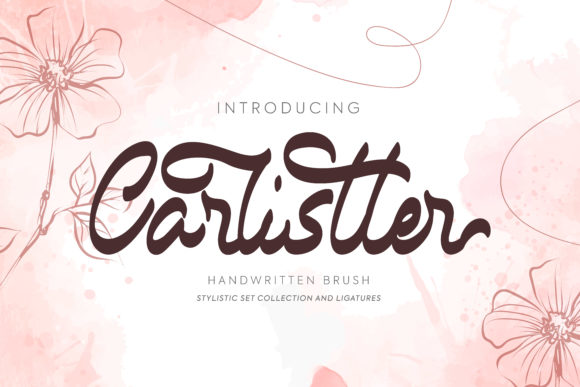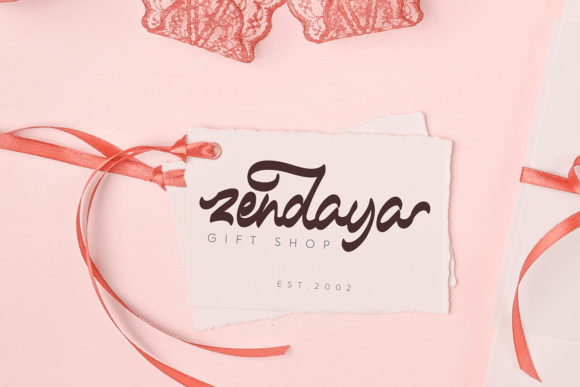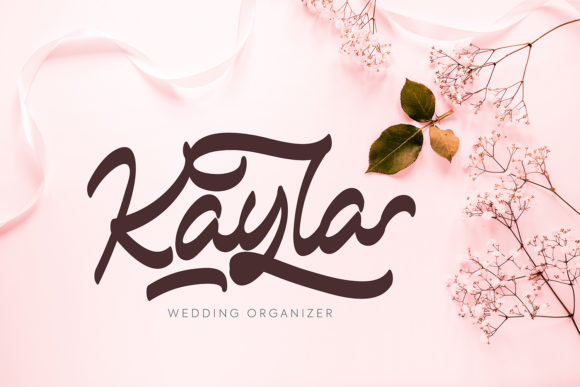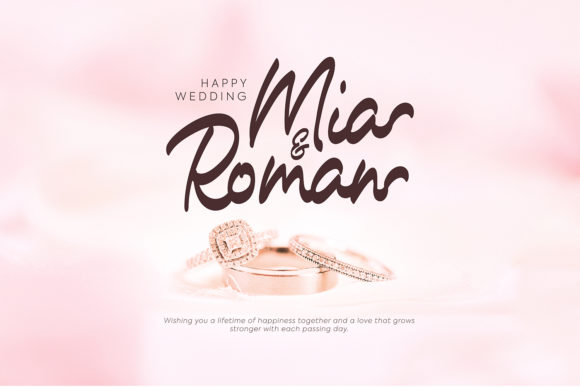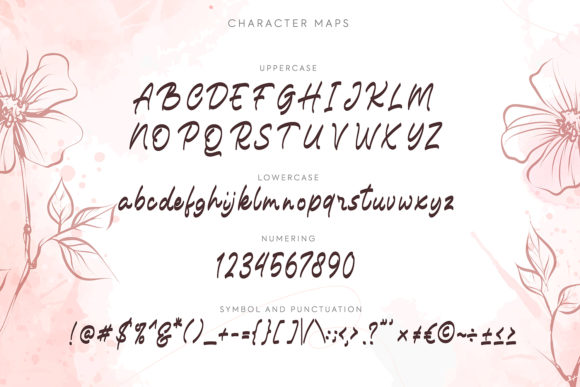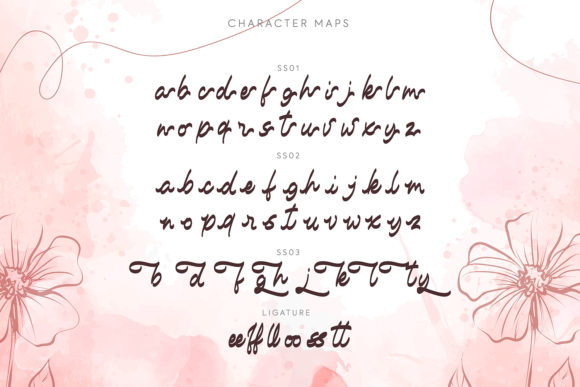
Carlistter Font
About Carlistter Font
Carlistter is a bold handwritten font, carefully handcrafted to become a true favorite. It will elevate a wide range of design projects to the highest level, be it branding, headings, wedding designs, invitations, signatures, logos, labels, and much more!